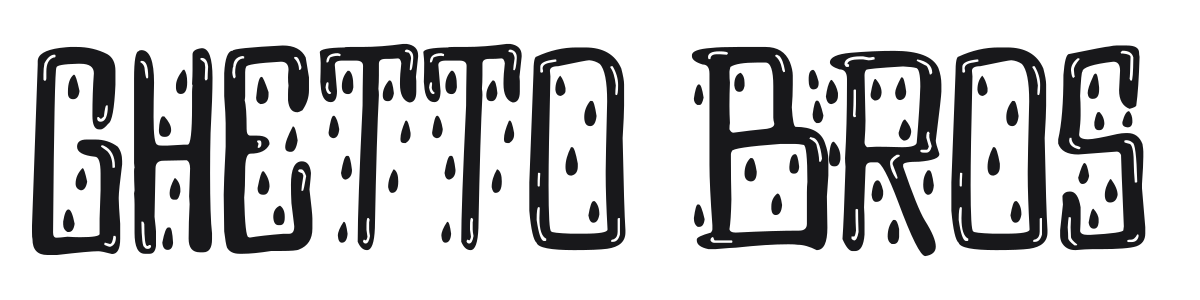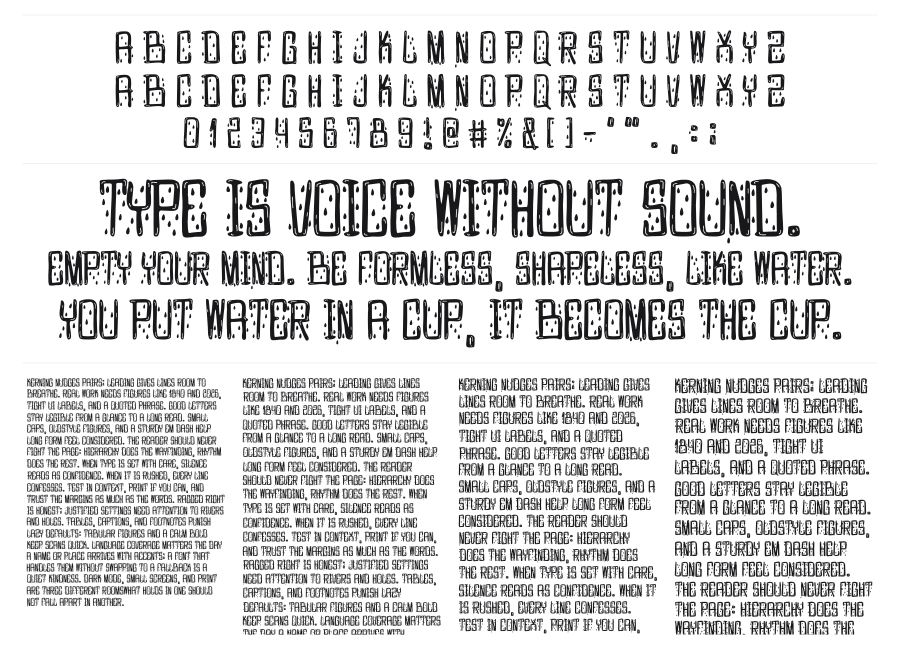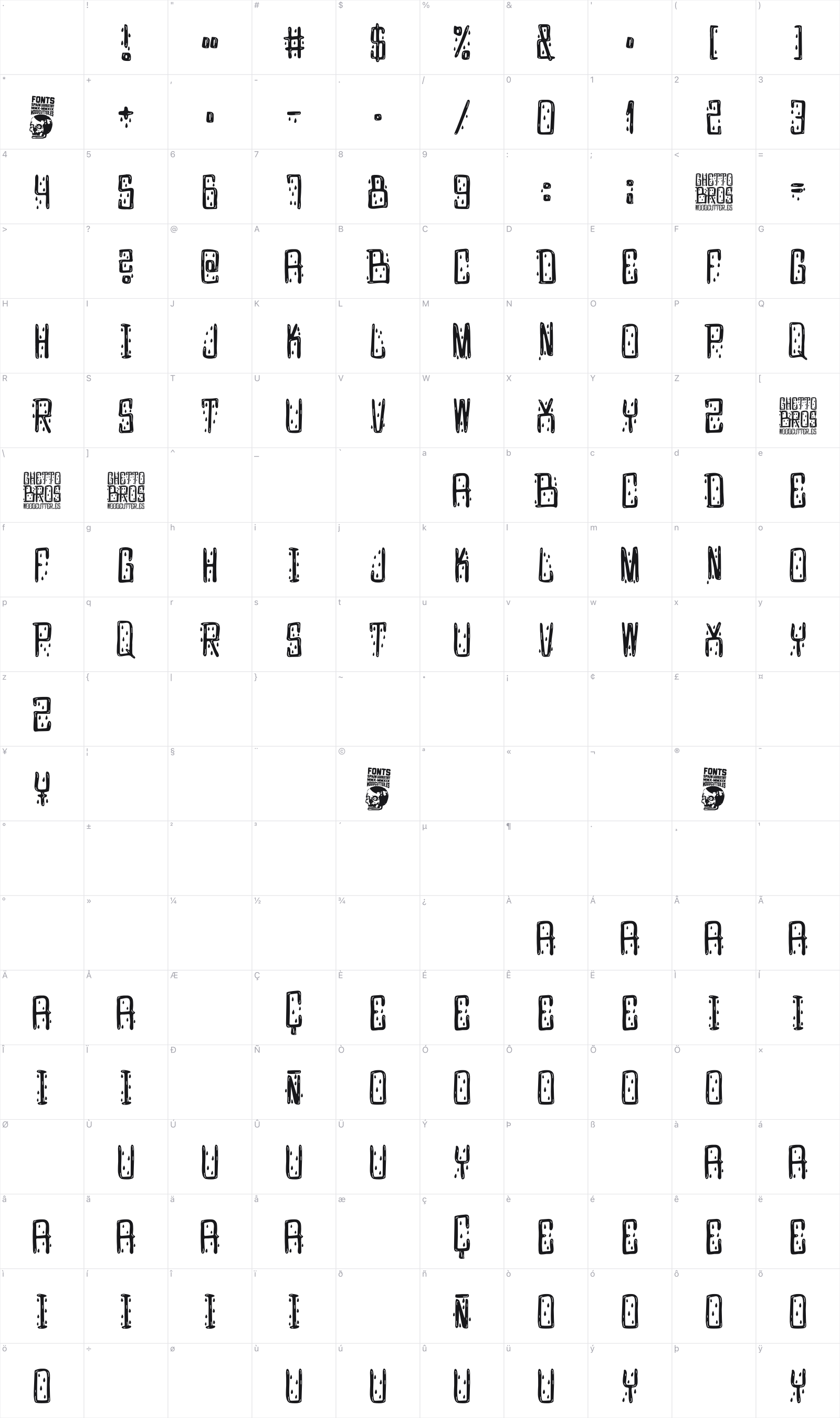
Ghetto Bros
Ghetto Bros is a heavy condensed display font by Woodcutter with an aggressively distressed texture of drips, splatters, and eroded edges. Every character looks like it was spray-painted on a damp wall and left to bleed. It carries strong hip-hop and street-art energy and works best large, where the texture detail can do its job.